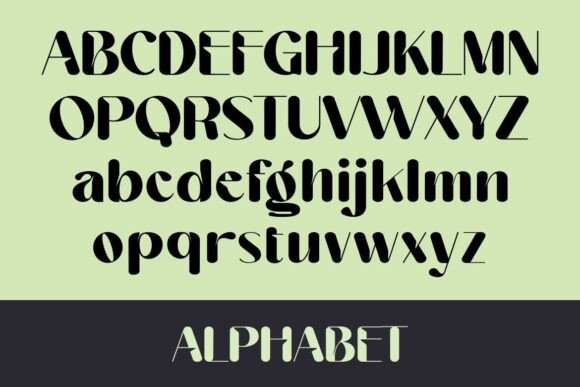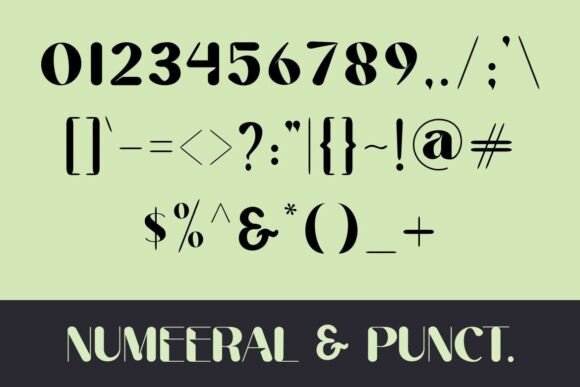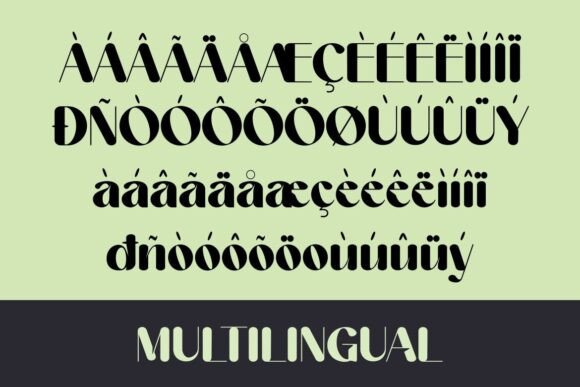
Introduction to Oval Boxes Font Font
OvalBoxes is a bold and authentic sans serif font.
The font is suitable for any branding project like logo, t-shirt printing, esport, and many more .